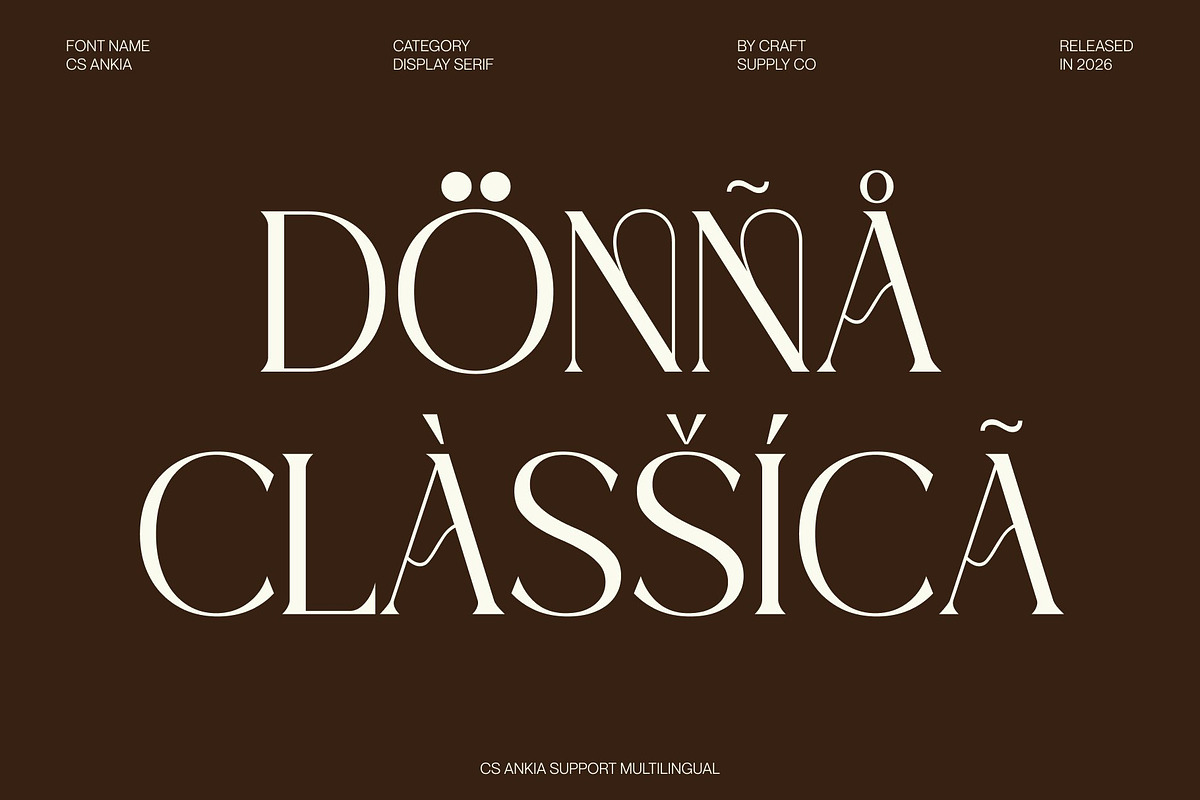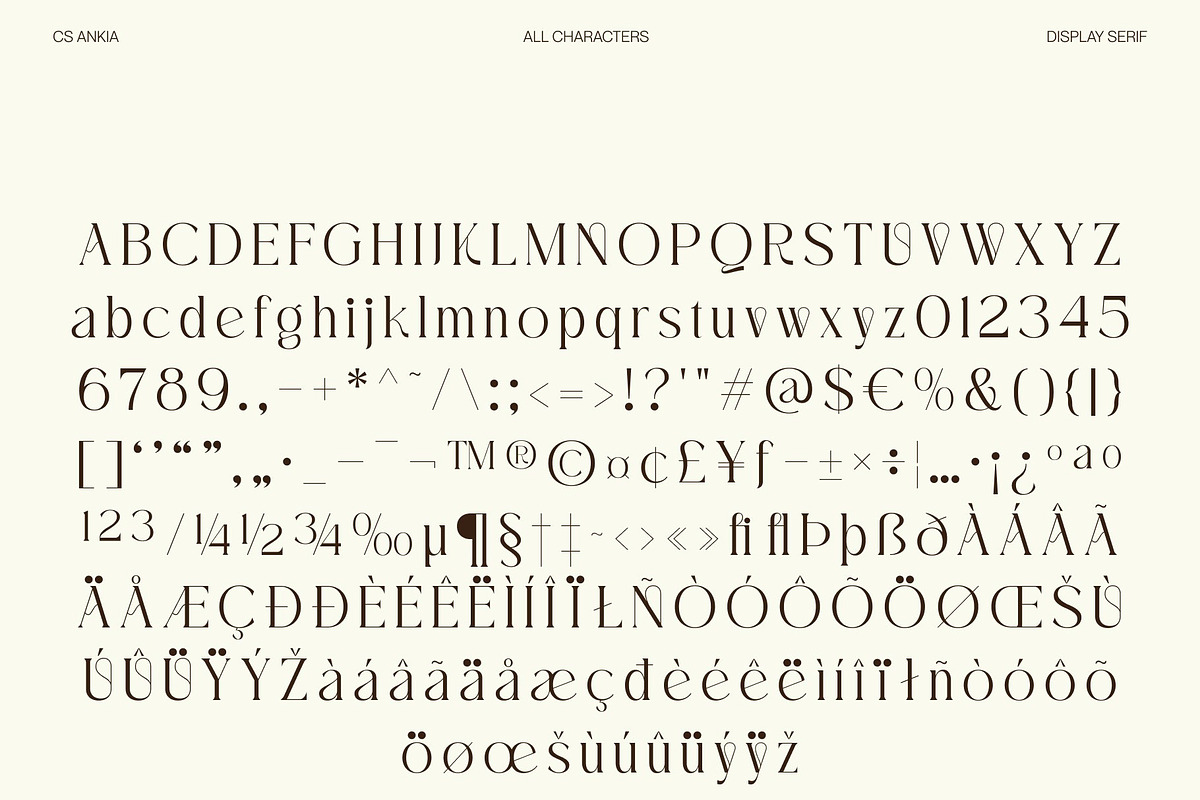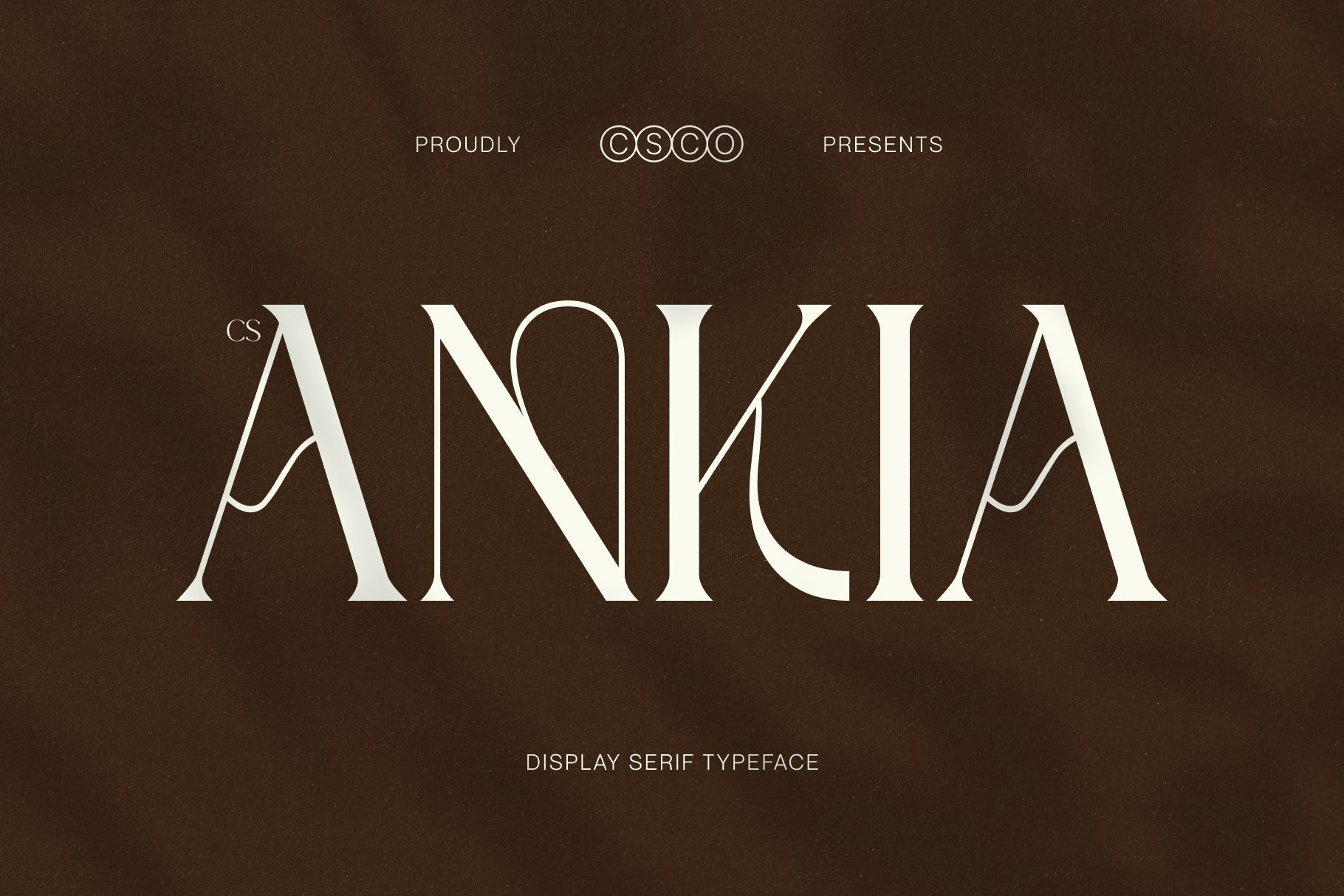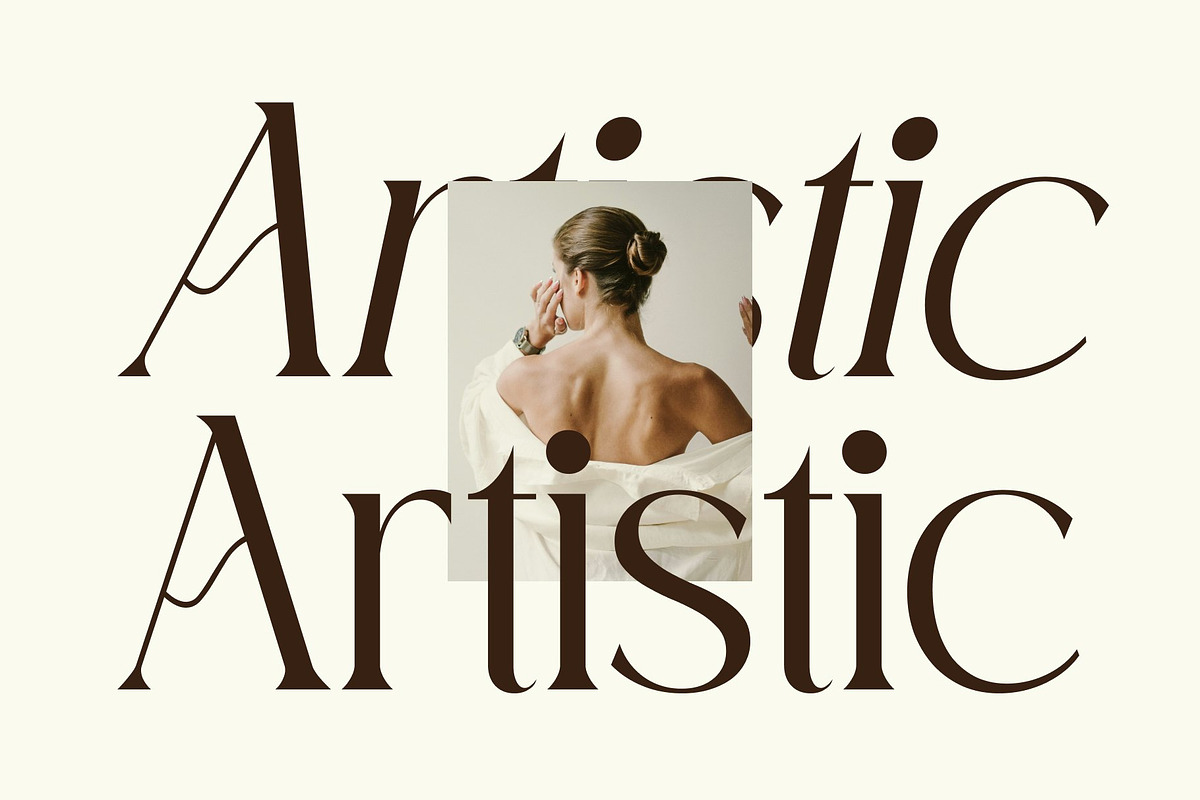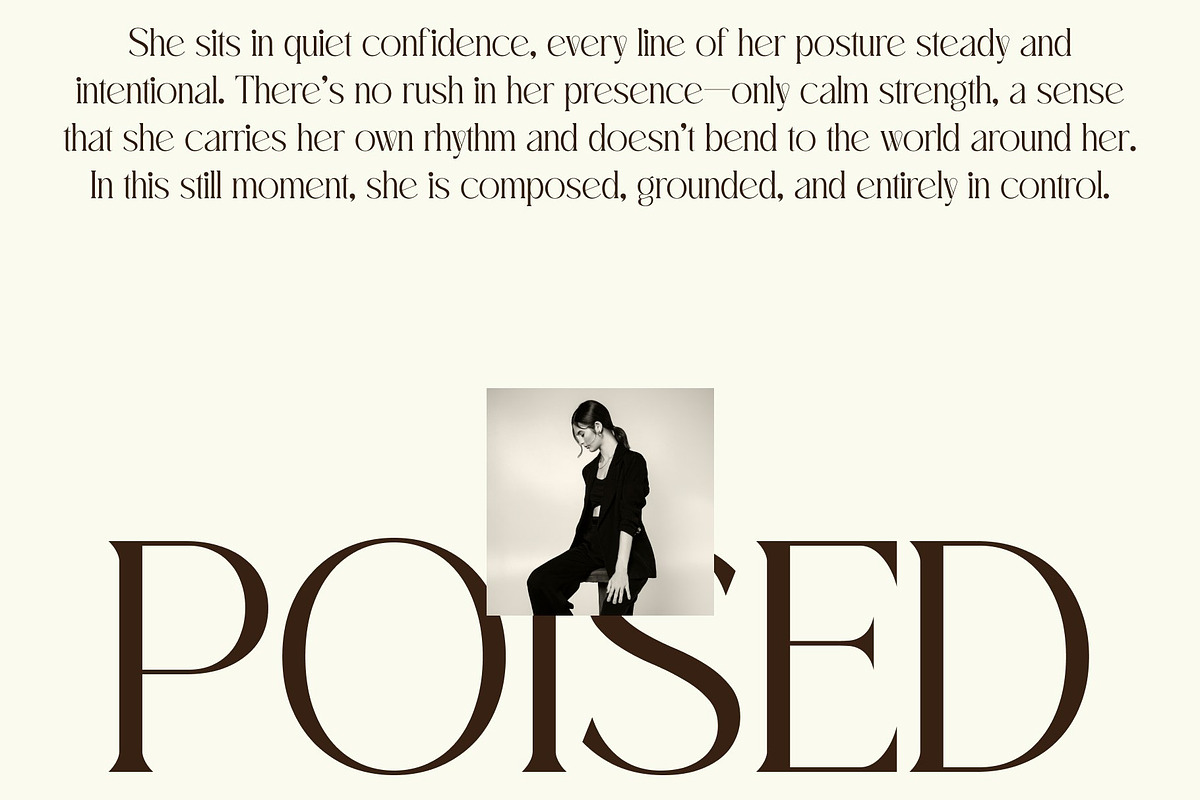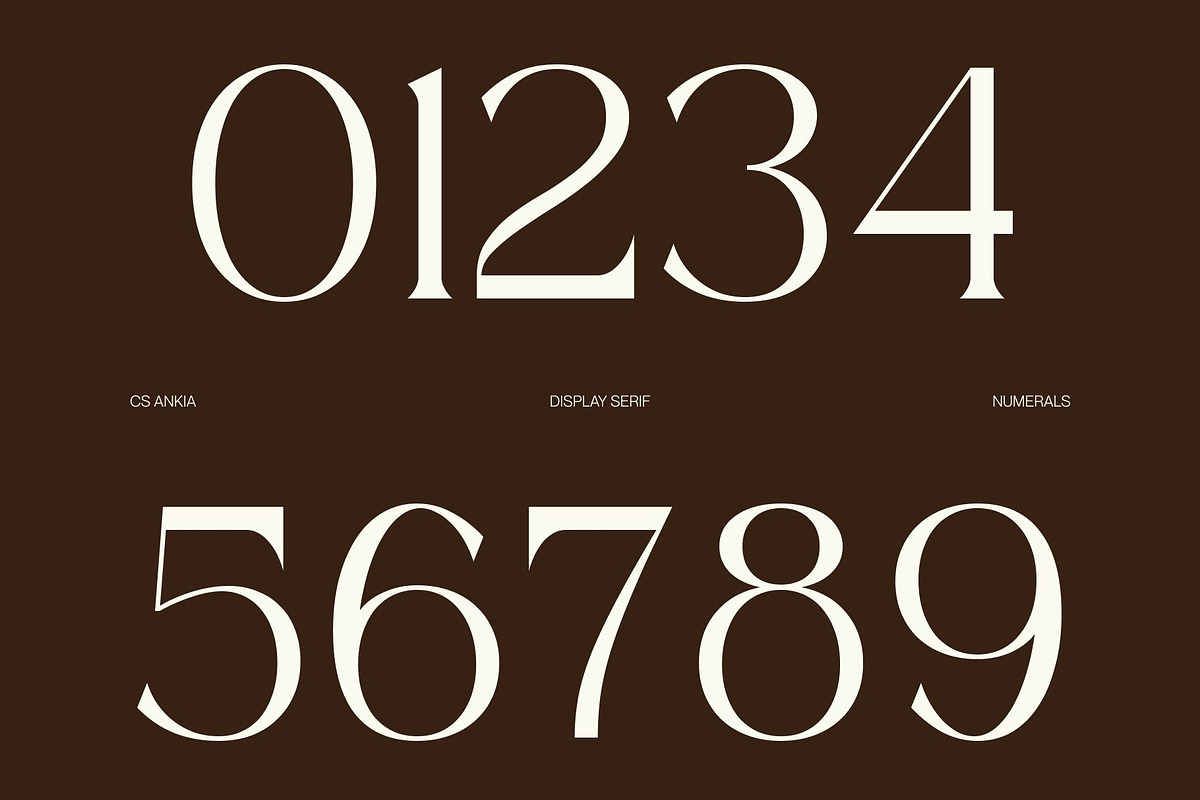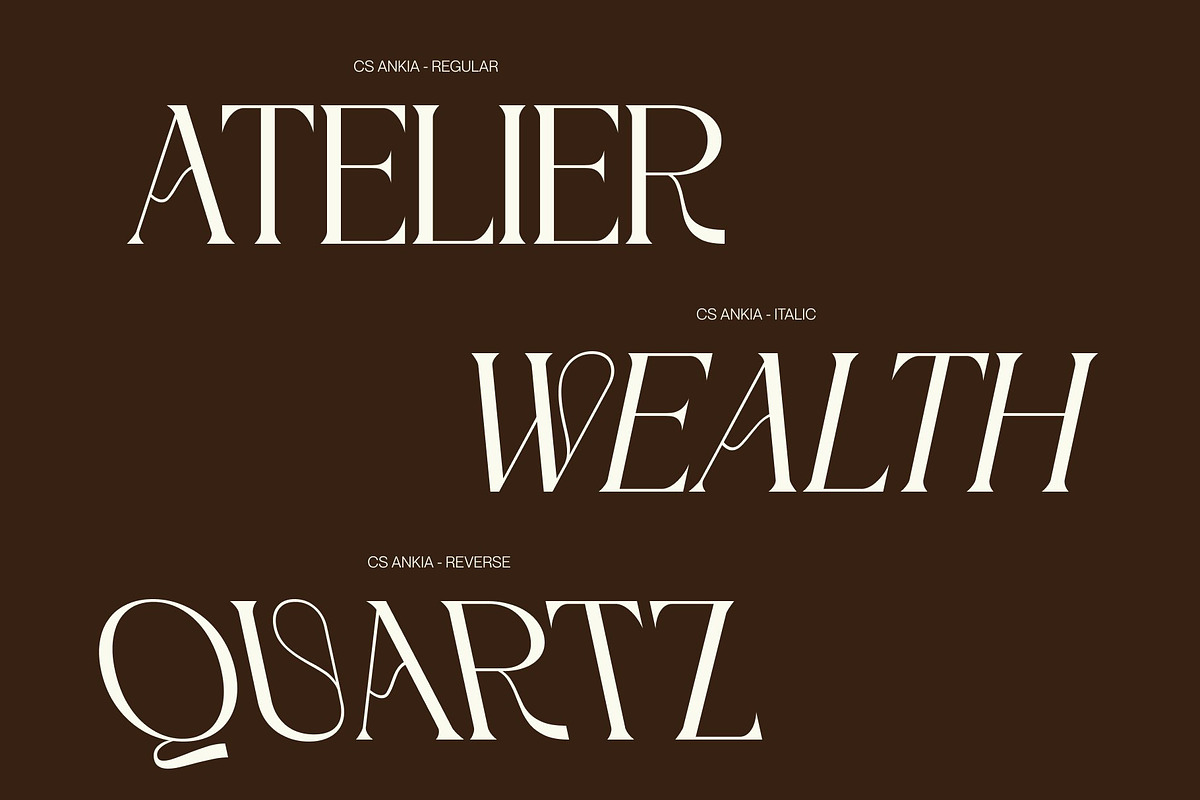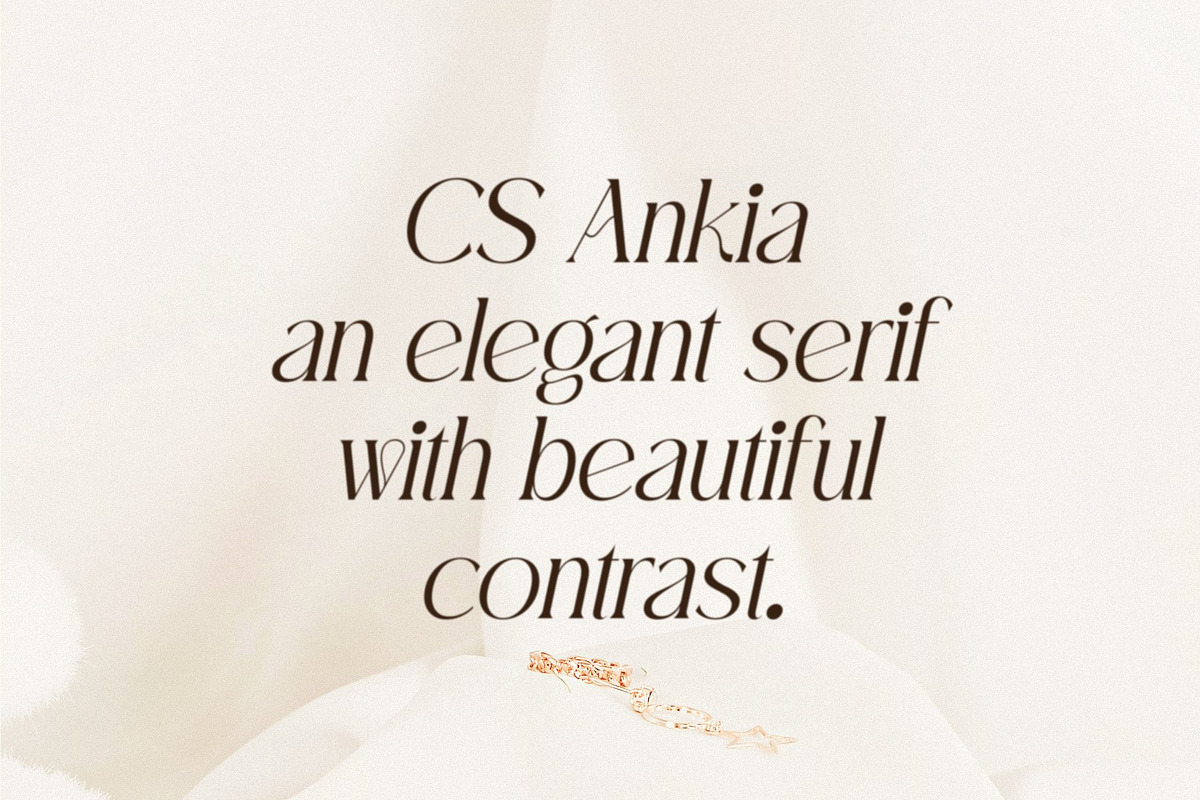
CS Ankia – Elegant Serif Font
CS Ankia – Elegant Serif with Modern Luxury Style
Elegant Serif with Refined Character This is an elegant serif font crafted to embody refined style and understated luxury. Its graceful letterforms and balanced proportions create a sophisticated presence that feels timeless yet modern. Designed to elevate visual communication, this typeface brings elegance and clarity together in perfect harmony.
Modern Design with Fresh Appeal The clean structure of this font introduces a contemporary twist to classic serif typography. Smooth curves and carefully shaped details give the font a fresh and stylish personality while maintaining excellent readability. This modern approach makes the typeface feel current, polished, and highly versatile.
Luxury Tone with Versatile Elegance This font communicates luxury through subtle refinement and confident simplicity. Its elegant appearance adapts effortlessly to both minimalist and expressive layouts, making it suitable for a wide range of creative projects. The font delivers a premium tone without overwhelming the design.
Perfect for Logos, Titles, and Headlines Ideal for logos, titles, headlines, and creative projects, this font excels in branding and editorial design. Whether used for fashion branding, modern campaigns, or stylish publications, it provides a refined and luxurious typographic presence that enhances every composition.
CS Ankia Regular
CS Ankia Italic
CS Ankia Reverse Italic